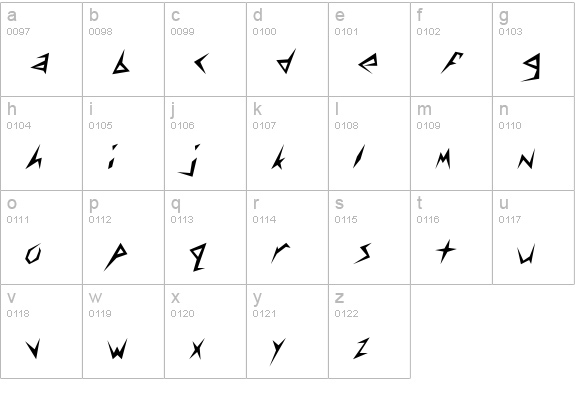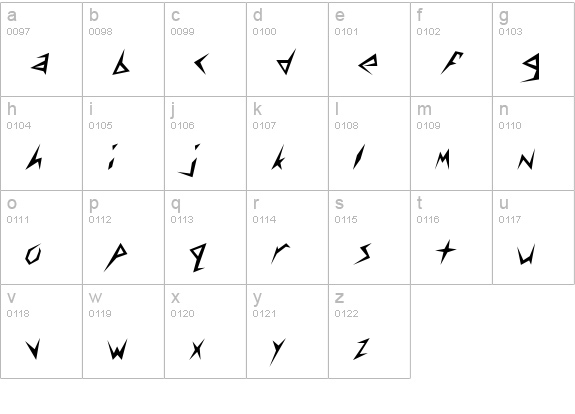
Introducing Stinger font, a sleek and modern typeface designed to make a bold statement in your designs. With its sharp edges and distinctive style, Stinger is perfect for creating eye-catching headlines, logos, and branding materials. This versatile font exudes a sense of confidence and sophistication, making it ideal for a wide range of projects. Best of all, Stinger font is available for free download at FontsMarket.com. Whether you're a seasoned designer looking to add a fresh touch to your work or a beginner exploring different typography options, Stinger font is a fantastic choice. Download it today and elevate your designs with this stylish and impactful typeface.